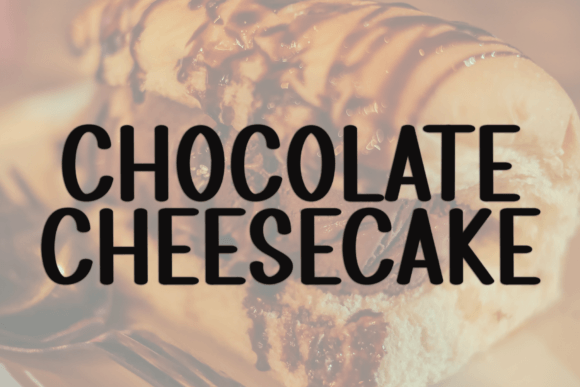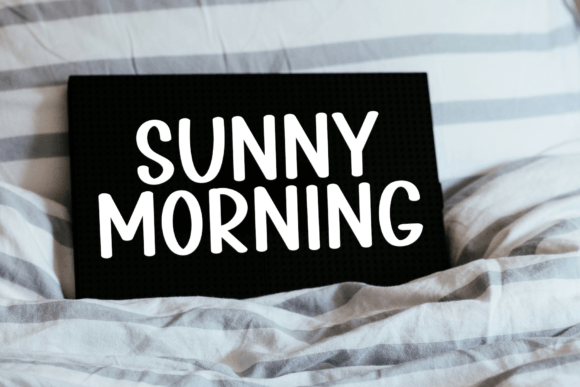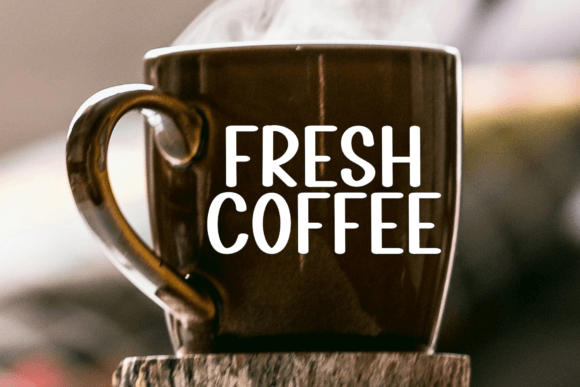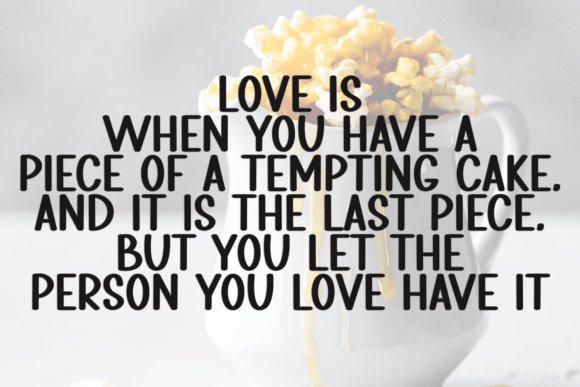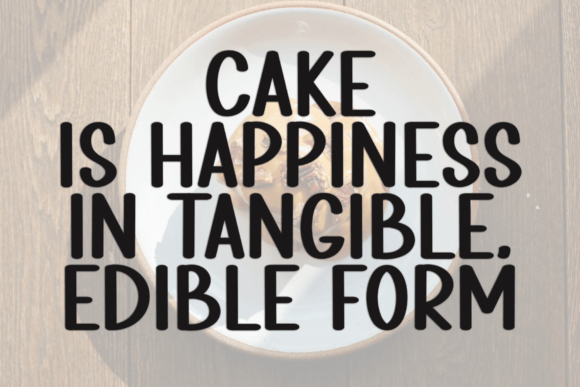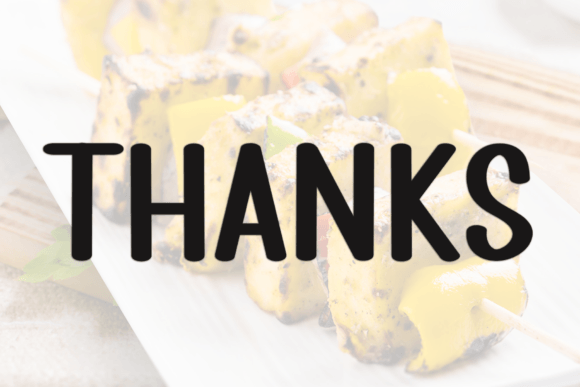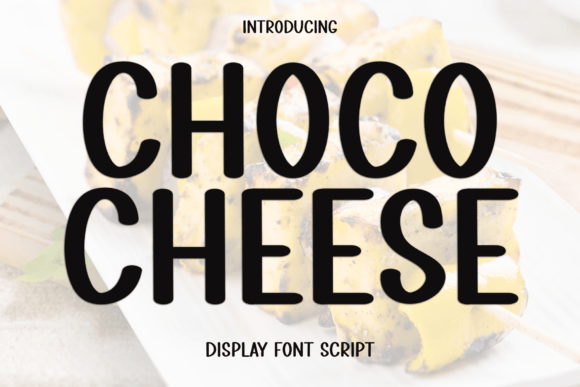
Introducing Choco Cheese Font: The Perfect Blend of Charm and Elegance
Are you a designer or crafter looking for a font that exudes both charm and elegance? Look no further than the Choco Cheese Font. This beautiful font is perfect for adding a touch of sophistication to any design project, from wedding invitations to business cards.
The Charm of Choco Cheese Font
Choco Cheese Font is a unique and stylish font that feels equally charming and elegant. Its distinctive design makes it stand out from other fonts, adding a touch of whimsy and playfulness to any design. Whether you’re creating a wedding invitation, a thank you card, or a quote, Choco Cheese Font is the perfect choice.
Elegant and Versatile
One of the best things about Choco Cheese Font is its versatility. It looks stunning on a wide range of design projects, including:
- Wedding invitations: Add a touch of elegance to your wedding invitations with Choco Cheese Font.
- Thank you cards: Express your gratitude in style with this beautiful font.
- Quotes: Make your quotes stand out with the charming and elegant Choco Cheese Font.
- Greeting cards: Create beautiful greeting cards for any occasion with this versatile font.
- Logos: Use Choco Cheese Font to create a unique and memorable logo for your business.
- Business cards: Add a touch of sophistication to your business cards with this elegant font.
Why Choose Choco Cheese Font?
So why choose Choco Cheese Font for your design projects? Here are just a few reasons:
- Unique design: Choco Cheese Font has a distinctive design that sets it apart from other fonts.
- Elegant and charming: This font exudes both elegance and charm, making it perfect for a wide range of design projects.
- Versatile: Choco Cheese Font looks great on a wide range of design projects, from wedding invitations to business cards.
Tips for Using Choco Cheese Font
Here are a few tips for using Choco Cheese Font in your design projects:
- Use it sparingly: Choco Cheese Font is a bold font, so use it sparingly to add emphasis to your design.
- Pair it with other fonts: Pair Choco Cheese Font with other fonts to create a unique and interesting design.
- Experiment with different sizes: Experiment with different sizes to see what works best for your design.
In conclusion, Choco Cheese Font is a beautiful and versatile font that is perfect for designers and crafters. Its unique design, elegance, and charm make it perfect for a wide range of design projects. Whether you’re creating a wedding invitation, a thank you card, or a logo, Choco Cheese Font is the perfect choice. So why not give it a try and see the difference it can make in your design projects?